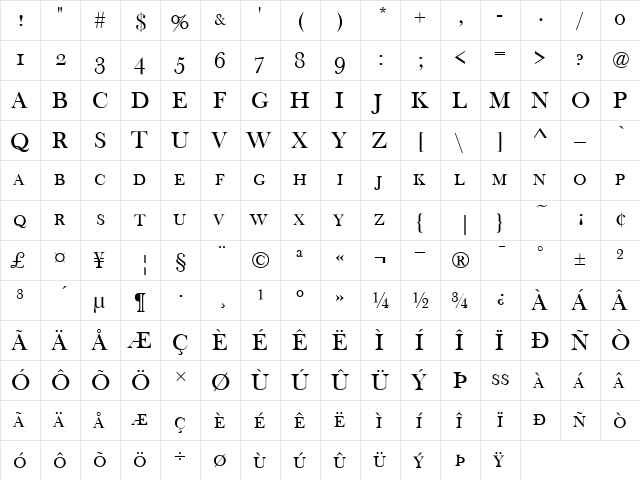
Baskerville Old Face SC D Regular
| Foundry | by URW |
Design Context for Baskerville Old Face SC D Typeface
Baskerville Old Face SC D takes a measured approach to typography — its balanced proportions and neutral character make it a reliable workhorse for both digital and print work.